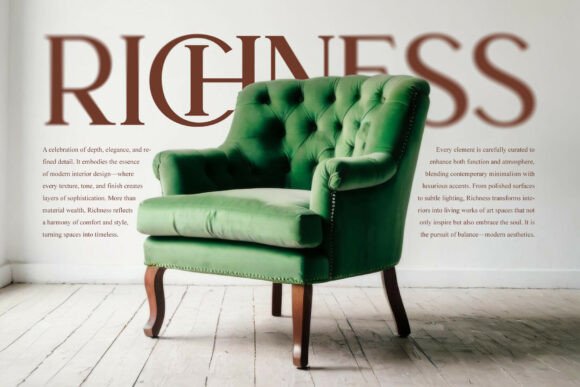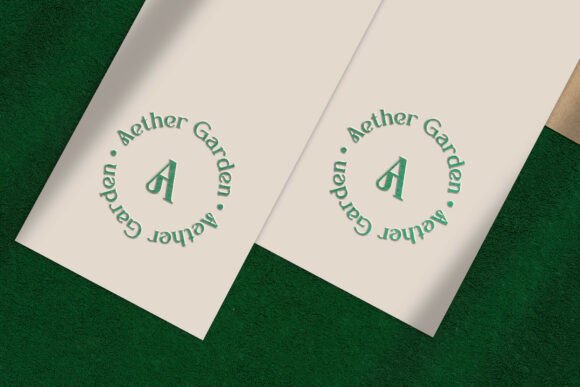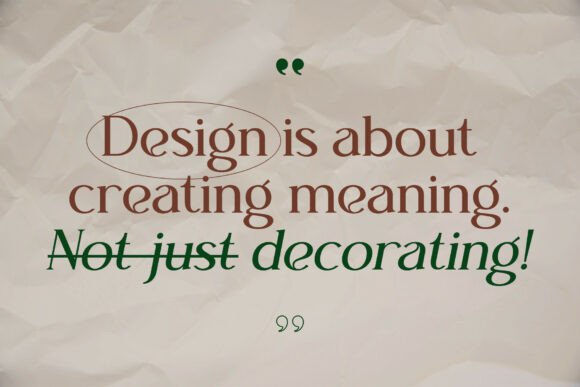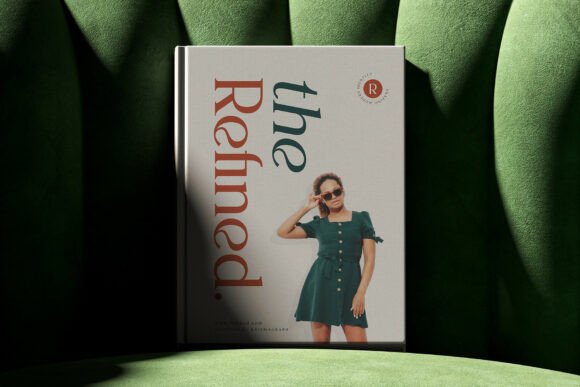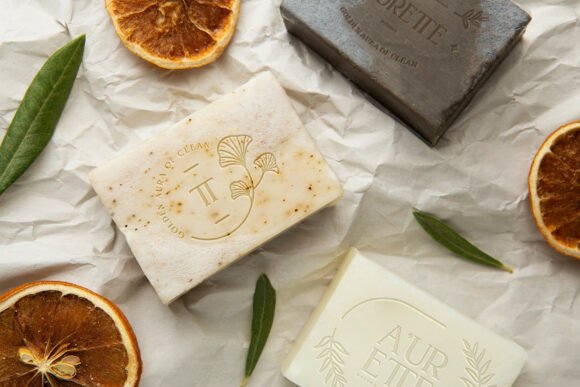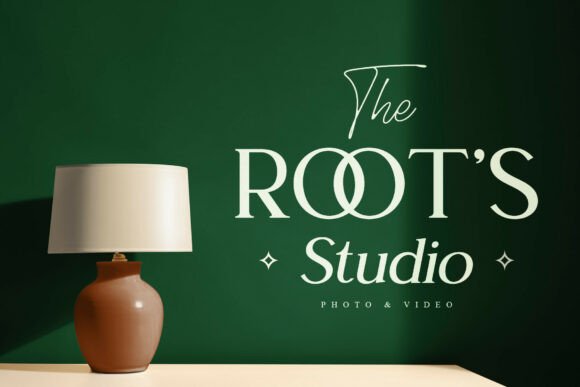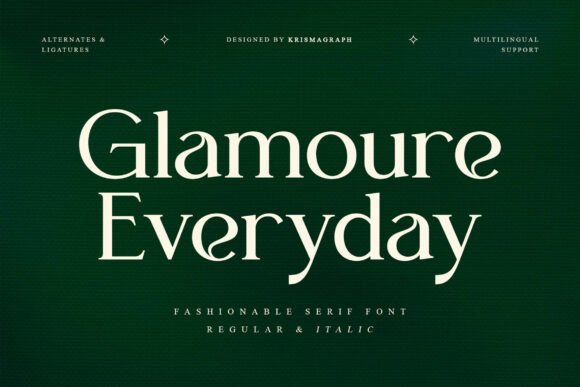
Introducing Glamoure Everyday: The Modern Serif Font for Elegant Designs
In the world of design, fonts play a crucial role in conveying the tone and aesthetic of a brand or project. For designers and crafters looking for a font that exudes elegance and sophistication, Glamoure Everyday is an excellent choice. This modern serif font is designed to elevate your designs, making it perfect for a wide range of applications, from headlines and titles to editorial content and branding.
What is Glamoure Everyday?
Glamoure Everyday is a modern serif font that combines classic elegance with a contemporary twist. Its unique design makes it stand out from other fonts, offering a distinctive look that can add a touch of glamour to any project. Whether you’re working on advertising, vintage mood boards, branding, logotypes, packaging, titles, editorial design, modern logos, websites, social media quotes, wedding branding, or both modern and vintage designs, Glamoure Everyday is an excellent choice.
Key Features of Glamoure Everyday
- Modern Serif Design: Glamoure Everyday boasts a modern serif design that adds a touch of sophistication to any project.
- Versatile: This font is versatile and can be used for a wide range of applications, from headlines and titles to editorial content and branding.
- Elegant and Refined: Glamoure Everyday has an elegant and refined look, making it perfect for designs that require a touch of glamour.
- Easy to Read: Despite its elegant design, Glamoure Everyday is easy to read, making it suitable for both digital and print applications.
Use Cases for Glamoure Everyday
Glamoure Everyday is a versatile font that can be used in a variety of design projects. Here are some use cases where this font shines:
- Advertising: Use Glamoure Everyday to create eye-catching headlines and titles for your advertising campaigns.
- Vintage Mood Boards: Add a touch of elegance to your vintage mood boards with Glamoure Everyday.
- Branding and Logotypes: Use Glamoure Everyday to create a sophisticated brand identity that stands out.
- Packaging: Elevate your packaging designs with the elegant and refined look of Glamoure Everyday.
- Editorial Design: Use Glamoure Everyday for titles, headings, and other editorial content to add a touch of glamour.
- Websites and Social Media: Use Glamoure Everyday to create a cohesive brand identity across your website and social media channels.
- Wedding Branding: Add a touch of elegance to your wedding branding with Glamoure Everyday.
Why Choose Glamoure Everyday?
With so many fonts available, why choose Glamoure Everyday? Here are a few reasons:
- Unique Design: Glamoure Everyday has a unique design that sets it apart from other fonts.
- Elegant and Refined: This font has an elegant and refined look that can add a touch of sophistication to any project.
- Versatile: Glamoure Everyday is versatile and can be used for a wide range of applications.
- Easy to Read: Despite its elegant design, Glamoure Everyday is easy to read, making it suitable for both digital and print applications.
In conclusion, Glamoure Everyday is an excellent choice for designers and crafters looking for a modern serif font that exudes elegance and sophistication. Its unique design, versatility, and ease of readability make it perfect for a wide range of applications. Whether you’re working on advertising, branding, editorial design, or wedding branding, Glamoure Everyday is sure to elevate your designs and add a touch of glamour.